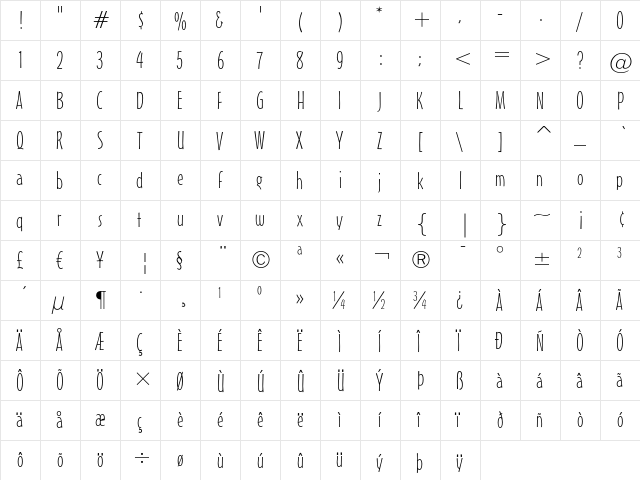
Mister Earl Extra Light
Design Context for Mister Earl Typeface
Mister Earl offers clean, dependable letterforms without strong stylistic allegiance, making it a practical choice for designers who need flexibility. The delicate stroke weight brings airiness and refinement to layouts.
Pro Tip: Use Mister Earl in both headline and body roles to test its range before committing to a single application.